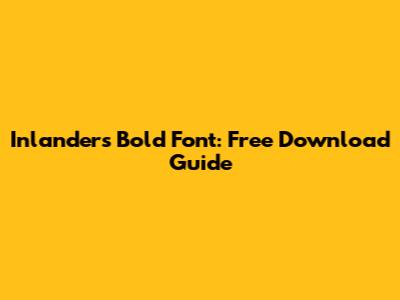
Inlanders Bold Font: Free Download Guide
What is Inlanders Bold Font?
Before we get into the nitty-gritty of downloading, let's talk about what makes the Inlanders Bold font so special. Inlanders Bold is a modern sans-serif typeface that exudes confidence and strength. Its clean lines and bold weight make it perfect for headlines, logos, and other display purposes. This font is designed to grab attention and make a statement, making it a favorite among designers and creatives.
The beauty of the Inlanders Bold font lies in its versatility. Whether you're working on a branding project, designing a website, or creating marketing materials, this font can adapt to various styles and themes. Its bold nature ensures that your message is delivered loud and clear, while its contemporary design adds a touch of sophistication. The Inlanders Bold font is not just about making things look good; it's about enhancing the overall impact of your design.
Moreover, the Inlanders Bold font is incredibly legible, even at smaller sizes. This is a crucial factor, especially when designing for digital platforms where readability is paramount. Its well-balanced letterforms and consistent spacing make it easy on the eyes, ensuring that your audience can effortlessly consume your content. Whether it’s a website, a brochure, or a poster, the Inlanders Bold font guarantees that your message is both visually appealing and easy to read.
The Inlanders Bold font is often used in a variety of design contexts, from corporate branding to creative advertising campaigns. Its strong and assertive character makes it an excellent choice for companies looking to project an image of reliability and innovation. Additionally, its modern aesthetic aligns well with contemporary design trends, ensuring that your projects always look fresh and relevant. By choosing the Inlanders Bold font, you're not just selecting a typeface; you're making a statement about your brand's identity and values.
In short, the Inlanders Bold font is a powerhouse of design potential, offering a unique blend of style, versatility, and readability. Its bold weight and clean lines make it an ideal choice for anyone looking to create impactful and memorable visuals. Whether you're a seasoned designer or just starting out, the Inlanders Bold font is a valuable asset to have in your typographic toolkit.
Key Features of Inlanders Bold
So, what makes the Inlanders Bold font stand out from the crowd? Let's break down some of its key features:
• Bold Weight: As the name suggests, Inlanders Bold has a strong, heavy weight that commands attention. This makes it ideal for headlines and titles.
• Clean Sans-Serif Design: The sans-serif design gives it a modern and minimalist look, perfect for contemporary projects.
• Excellent Legibility: Even at smaller sizes, the font remains highly readable, ensuring your message gets across clearly.
• Versatility: Inlanders Bold can be used in a wide range of applications, from web design to print materials.
• Professional Aesthetic: Its polished and refined appearance makes it suitable for corporate branding and high-end design projects.
When you're considering a font for your project, these features of the Inlanders Bold font can make a significant difference. The bold weight ensures that your text stands out, capturing the reader's attention immediately. This is especially crucial for headlines and titles where you want to make a strong first impression. The clean, sans-serif design provides a modern and minimalist aesthetic, which is perfect for projects that aim for a contemporary look and feel. This design choice makes the font versatile and adaptable to various design styles.
Excellent legibility is another critical feature of the Inlanders Bold font. A font that is easy to read, even at smaller sizes, ensures that your message is communicated clearly and effectively. This is particularly important for body text and digital applications where readability can significantly impact user experience. The well-defined letterforms and balanced spacing of Inlanders Bold contribute to its superior legibility, making it a practical choice for diverse design needs.
The versatility of the Inlanders Bold font means it can be used across a wide range of applications. Whether you're designing a website, creating print materials, or working on a branding project, this font can adapt to different contexts while maintaining its distinct character. Its ability to function well in both digital and print media makes it a valuable asset for designers working on diverse projects.
Finally, the professional aesthetic of the Inlanders Bold font makes it suitable for corporate branding and high-end design projects. Its polished and refined appearance conveys a sense of sophistication and quality, which is essential for brands that want to project a professional image. This font can elevate the overall look and feel of your designs, helping you create visually compelling and impactful communications.
By following these tips and guidelines, you can effectively use the Inlanders Bold font and other typefaces to create visually compelling and impactful designs. Whether you're working on branding, web design, print materials, or social media graphics, a well-chosen and well-implemented font can make all the difference in communicating your message and achieving your design goals. Always prioritize readability, visual hierarchy, and consistency, and don't be afraid to experiment and explore different font combinations to find the perfect typographic solution for your projects. With careful planning and attention to detail, you can create designs that are both visually appealing and effective in conveying your message to your target audience.